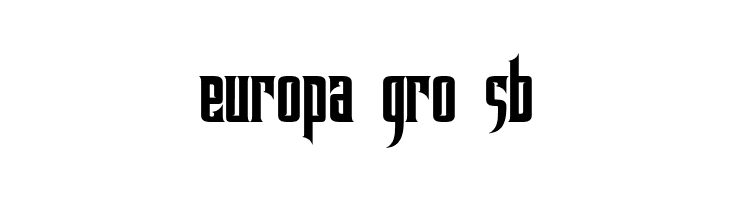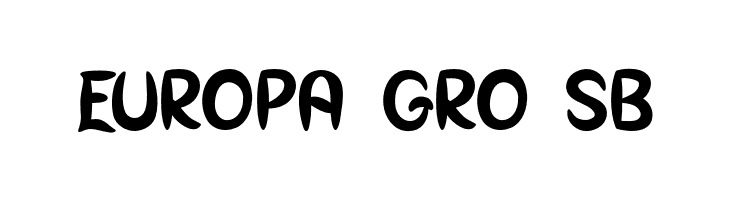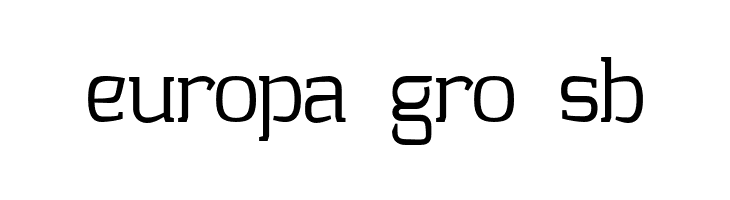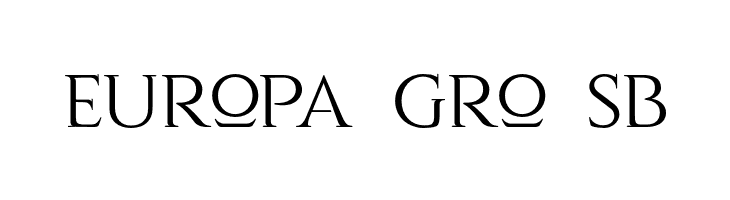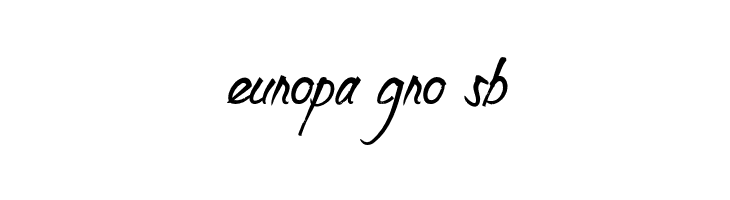
A bold, gothic-inspired font with sharp, angular edges and dramatic serifs.
A playful, bold, and hand-drawn style font with rounded, irregular characters.
A dynamic and fluid script font with elegant, flowing letterforms.
A bold, Gothic-inspired font with sharp edges and high contrast.
A modern, geometric font with clean lines and a structured appearance.
An elegant and artistic font with flowing letterforms and extended serifs.
An elegant, flowing script font with calligraphic influences and decorative flourishes.
A dynamic, handwritten-style font with fluid, elongated characters.
A bold, brushstroke font with dynamic and energetic styling.
A dynamic, cursive script font with a flowing, handwritten style.